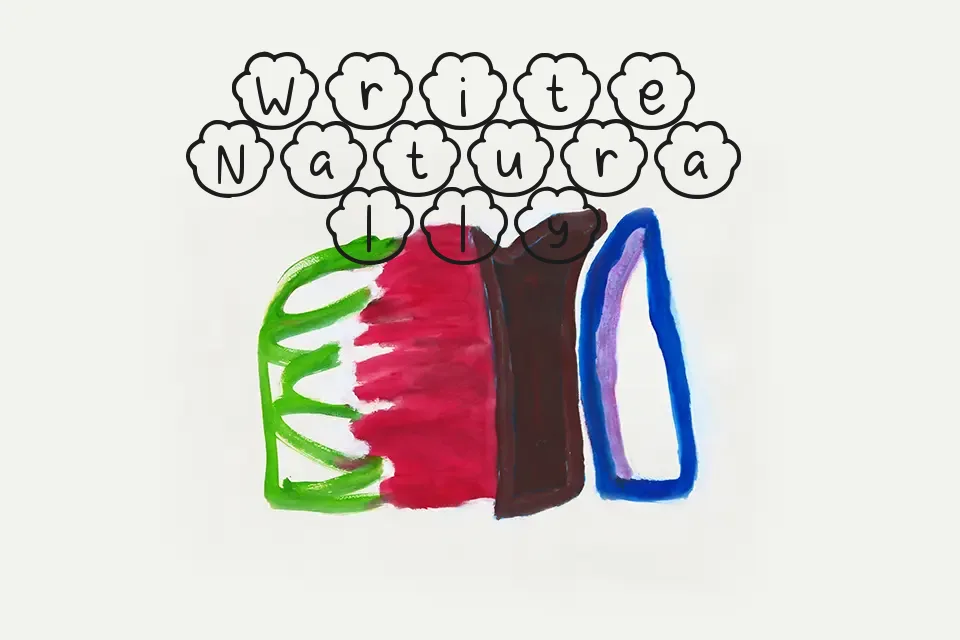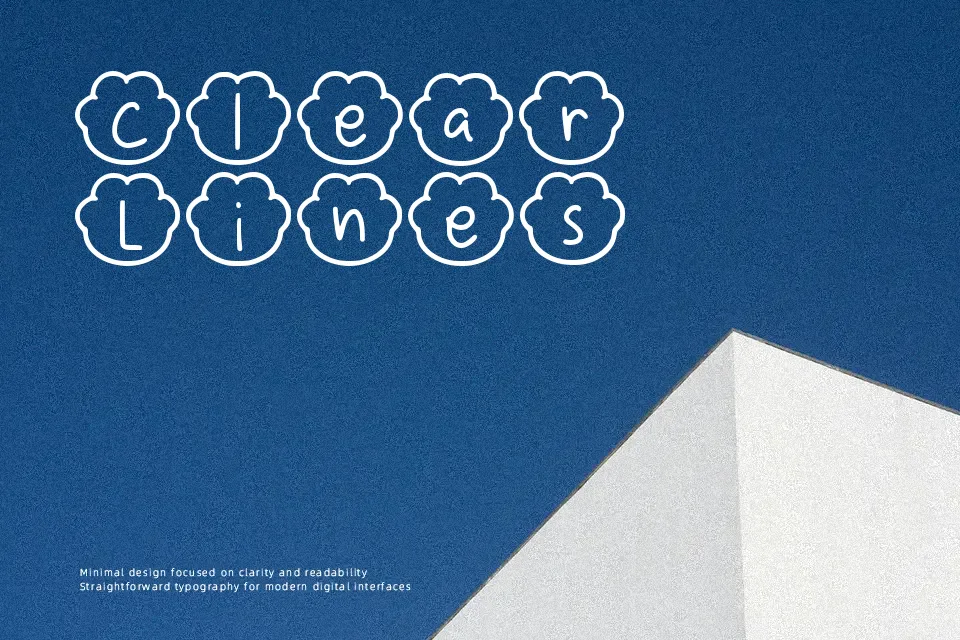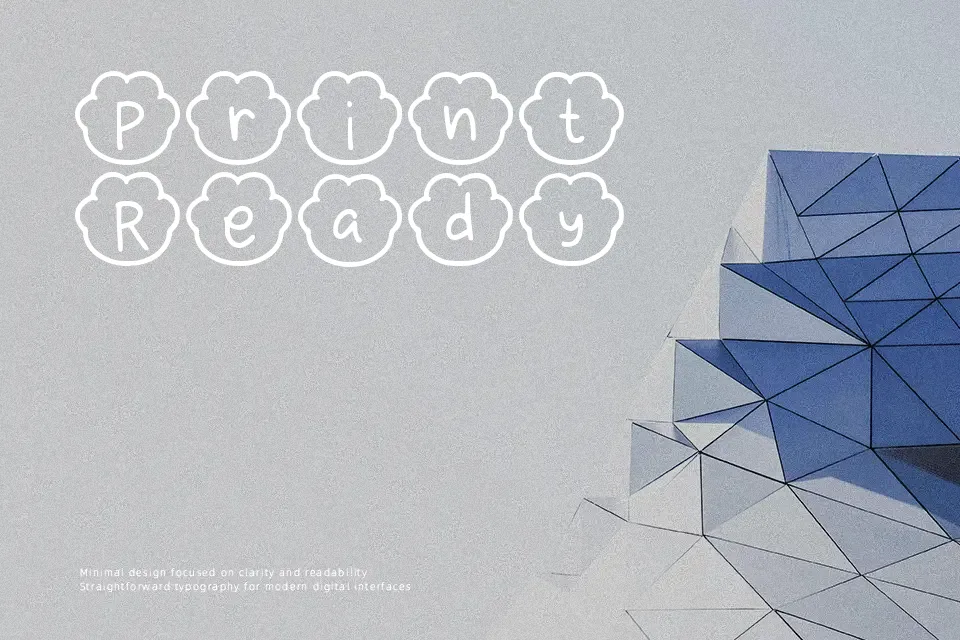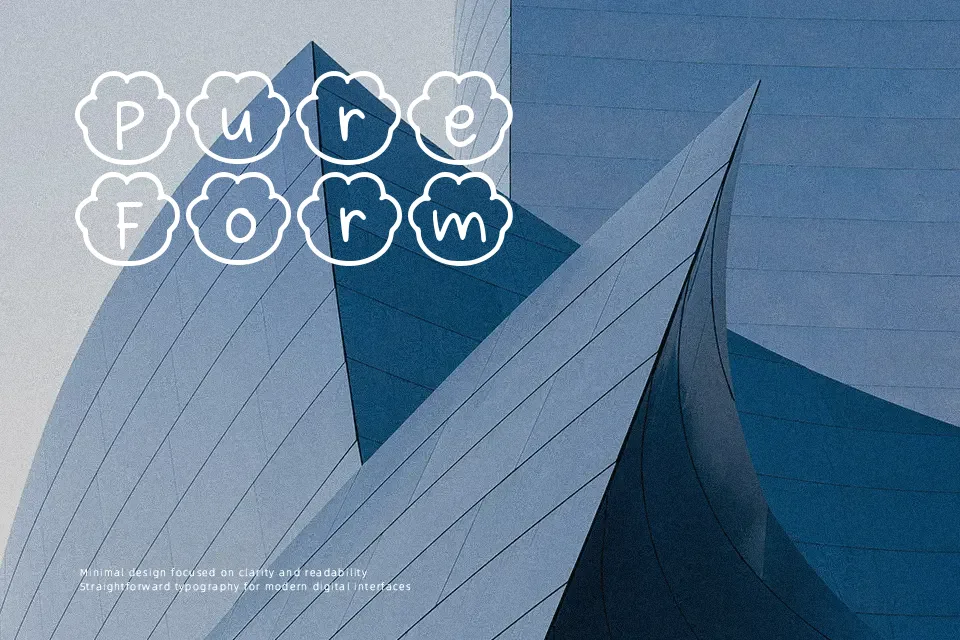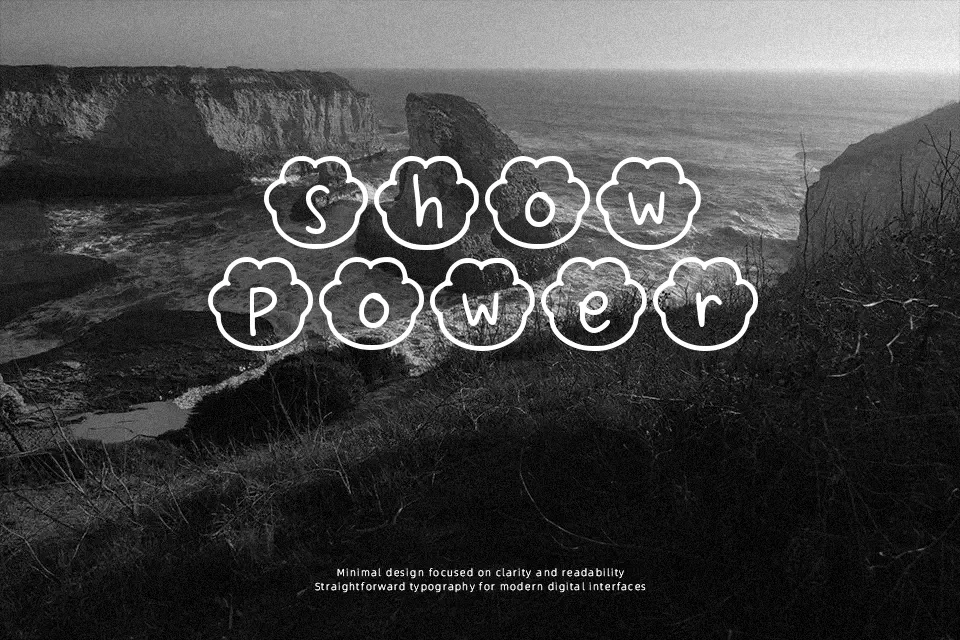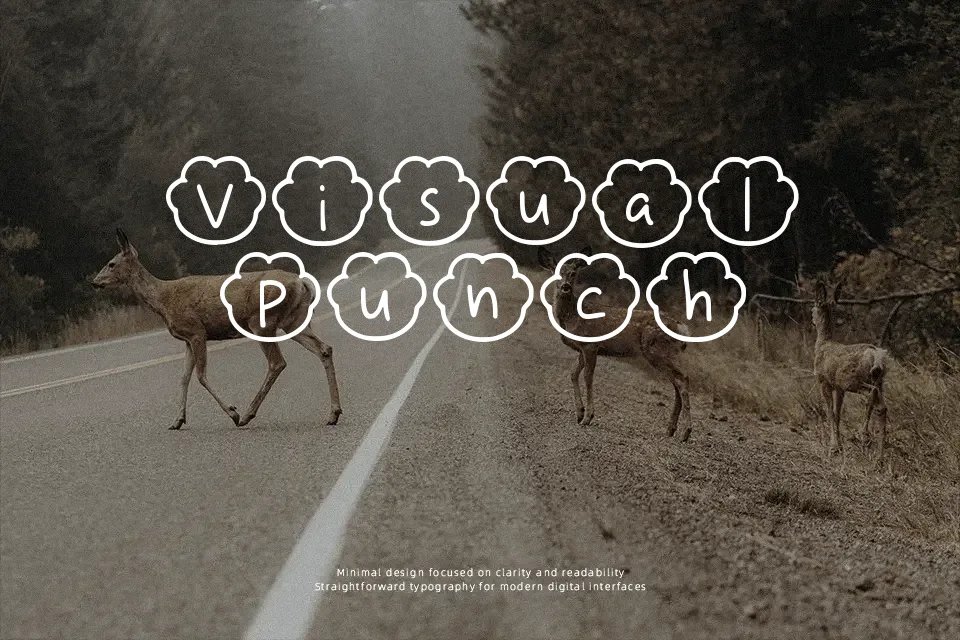
Paws Meow Font
Paws Meow Font uses plump, rounded letterforms with a playful cartoon character and softly curved strokes. Its wide-looking shapes and open internal spaces keep short words recognizable at display sizes, while the expressive outlines give headings a light, child-friendly rhythm. The typeface works naturally for pet event posters, sticker text, and short packaging messages. Spacing appears most comfortable when the text is kept brief rather than tightly packed. In practical use, the bold rounded forms hold attention well in large titles, but their decorative personality makes extended reading less comfortable.
Best For: pet shop signage,children’s party invitations,animal-themed product packaging,social media headlines
Not Ideal For: long paragraph text,corporate reports,small interface labels,technical manuals
Perfect for headline, kids, and packaging, with a cute and cartoon style.